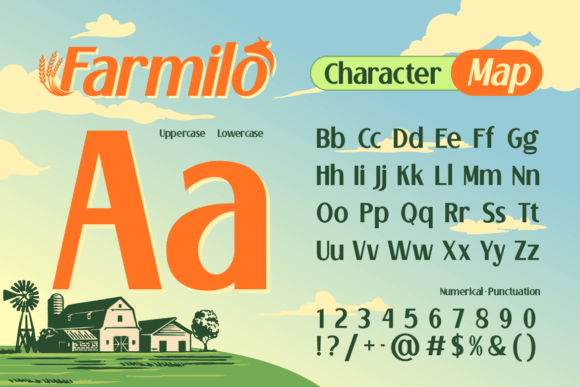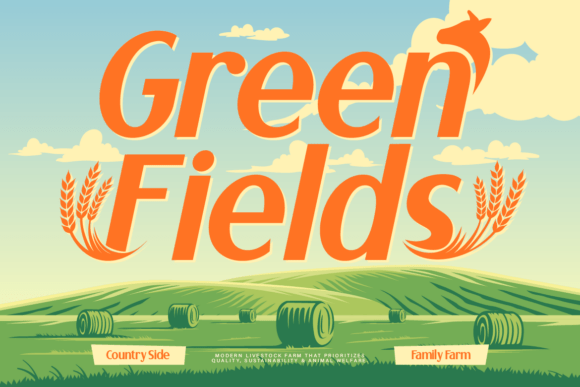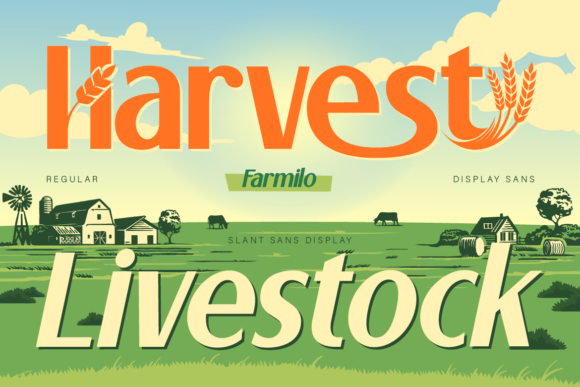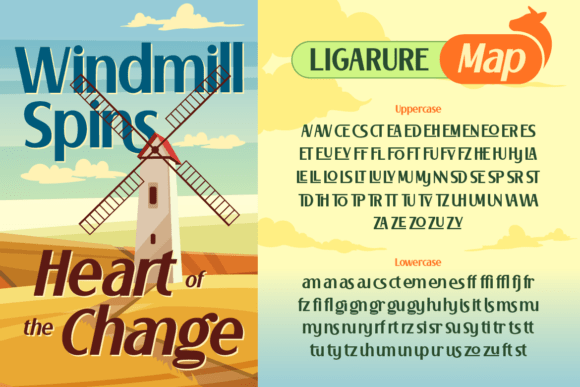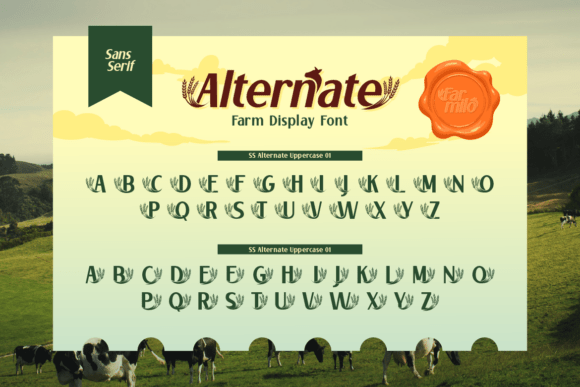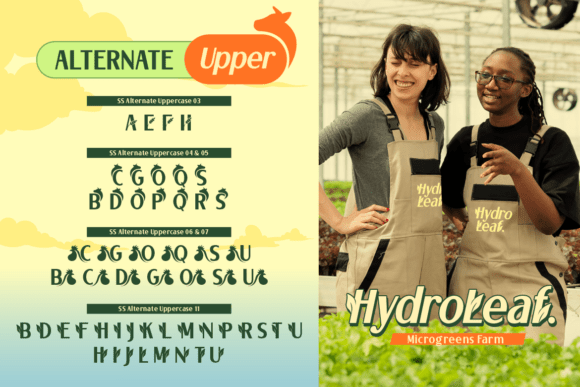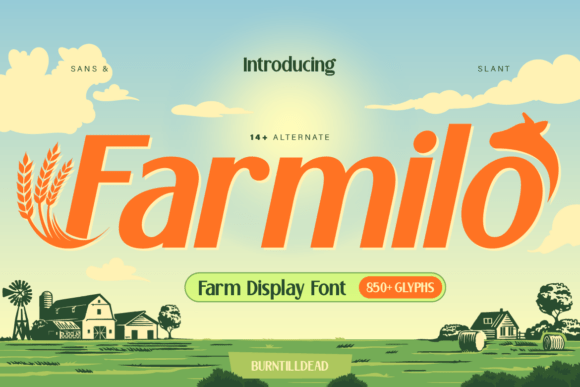
Introducing Farmilo Font: The Perfect Blend of Modern Simplicity and Rustic Charm
Are you looking for a font that captures the essence of countryside life and agricultural landscapes? Look no further than Farmilo Font, a fresh and friendly display font designed to bring a touch of rustic charm to your designs. With its clean sans-serif structure and subtle slanted style, Farmilo strikes the perfect balance between modern simplicity and rustic charm, making it an ideal choice for designers and crafters.
A Unique Personality
What sets Farmilo apart from other fonts is its unique personality. The letterforms are smooth, bold, and easy to read, while the carefully crafted alternates add a playful touch, featuring elements inspired by farming such as wheat and organic curves. This attention to detail makes your designs feel more alive, warm, and naturally engaging. Whether you’re working on a branding project, packaging design, or social media graphics, Farmilo Font is sure to make a lasting impression.
Two Styles to Suit Your Needs
Farmilo Font comes in two styles: Regular and Slant. The Regular style is clean, stable, and highly readable, making it perfect for body text and other applications where clarity is key. The Slant style, on the other hand, feels more dynamic, stylish, and expressive, making it ideal for headlines, titles, and other design elements where you want to make a statement.
Farmilo Font is versatile and can be used for a wide range of projects, including:
• Farm and agriculture branding: Use Farmilo Font to create a strong and recognizable brand identity for your farm or agricultural business.
• Organic food packaging: Add a touch of rustic charm to your packaging design with Farmilo Font, perfect for organic food products.
• Local markets and grocery designs: Use Farmilo Font to create eye-catching signage and promotional materials for your local market or grocery store.
• Eco-friendly products: Farmilo Font is a great choice for eco-friendly products, such as reusable bags, water bottles, and other sustainable products.
• Restaurant and café branding: Add a touch of warmth and coziness to your restaurant or café branding with Farmilo Font.
• Logo design: Use Farmilo Font to create a unique and memorable logo for your business or brand.
• Posters: Create eye-catching posters with Farmilo Font, perfect for promoting events, sales, or new products.
• Social media: Use Farmilo Font to create engaging social media graphics, such as Facebook posts, Instagram stories, and Twitter headers.
Why Choose Farmilo Font?
So why choose Farmilo Font for your next design project? Here are just a few reasons:
• Unique and recognizable: Farmilo Font has a unique personality that sets it apart from other fonts.
• Versatile: Farmilo Font can be used for a wide range of projects, from branding and packaging to social media and posters.
• Easy to read: The letterforms are smooth, bold, and easy to read, making it perfect for body text and other applications where clarity is key.
• Playful touch: The carefully crafted alternates add a playful touch, featuring elements inspired by farming such as wheat and organic curves.
In conclusion, Farmilo Font is a fresh and friendly display font that brings a touch of rustic charm to your designs. With its clean sans-serif structure, subtle slanted style, and unique personality, Farmilo is perfect for a wide range of projects, from farm and agriculture branding to social media graphics. Whether you’re a designer or crafter, Farmilo Font is sure to inspire your next creative project.